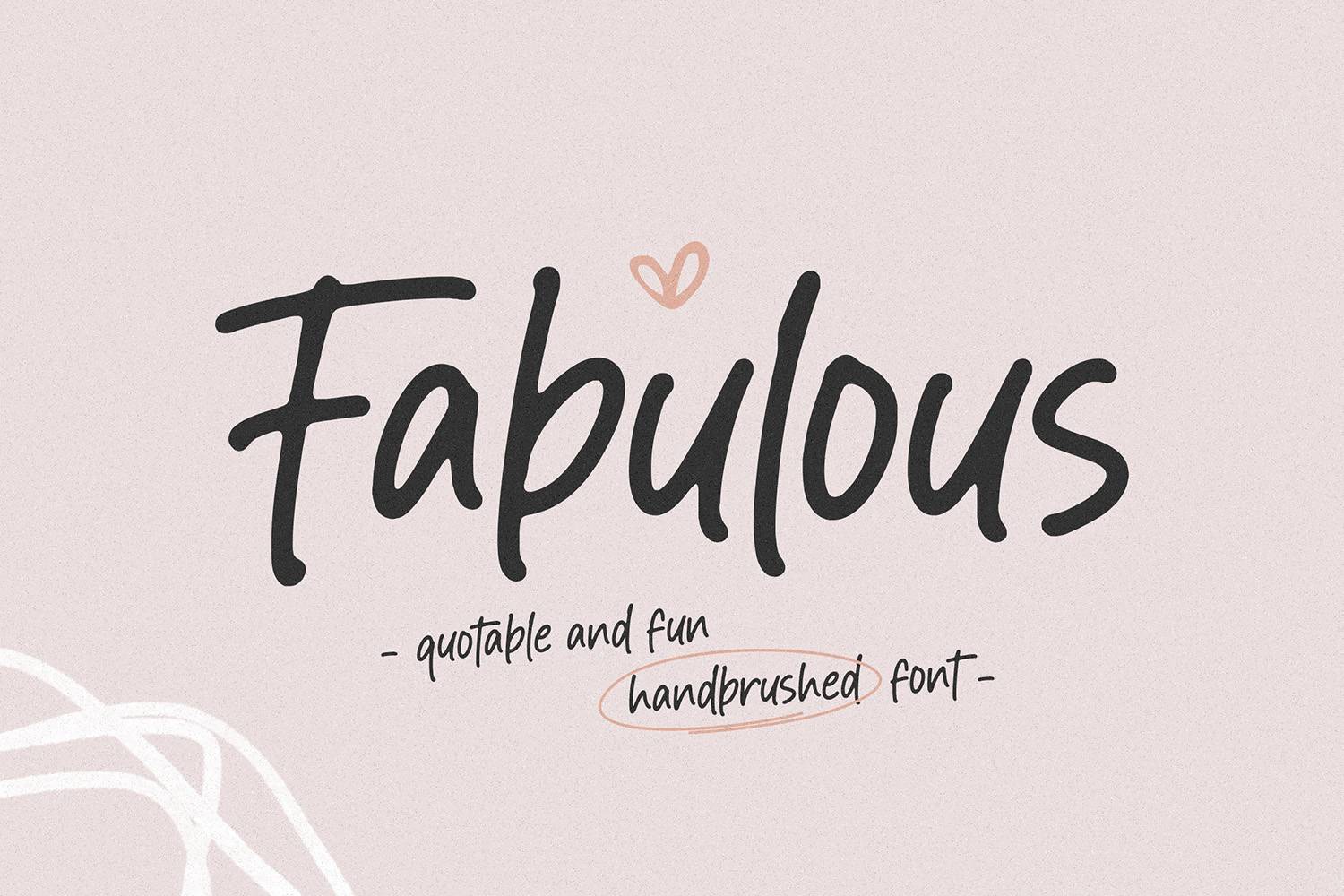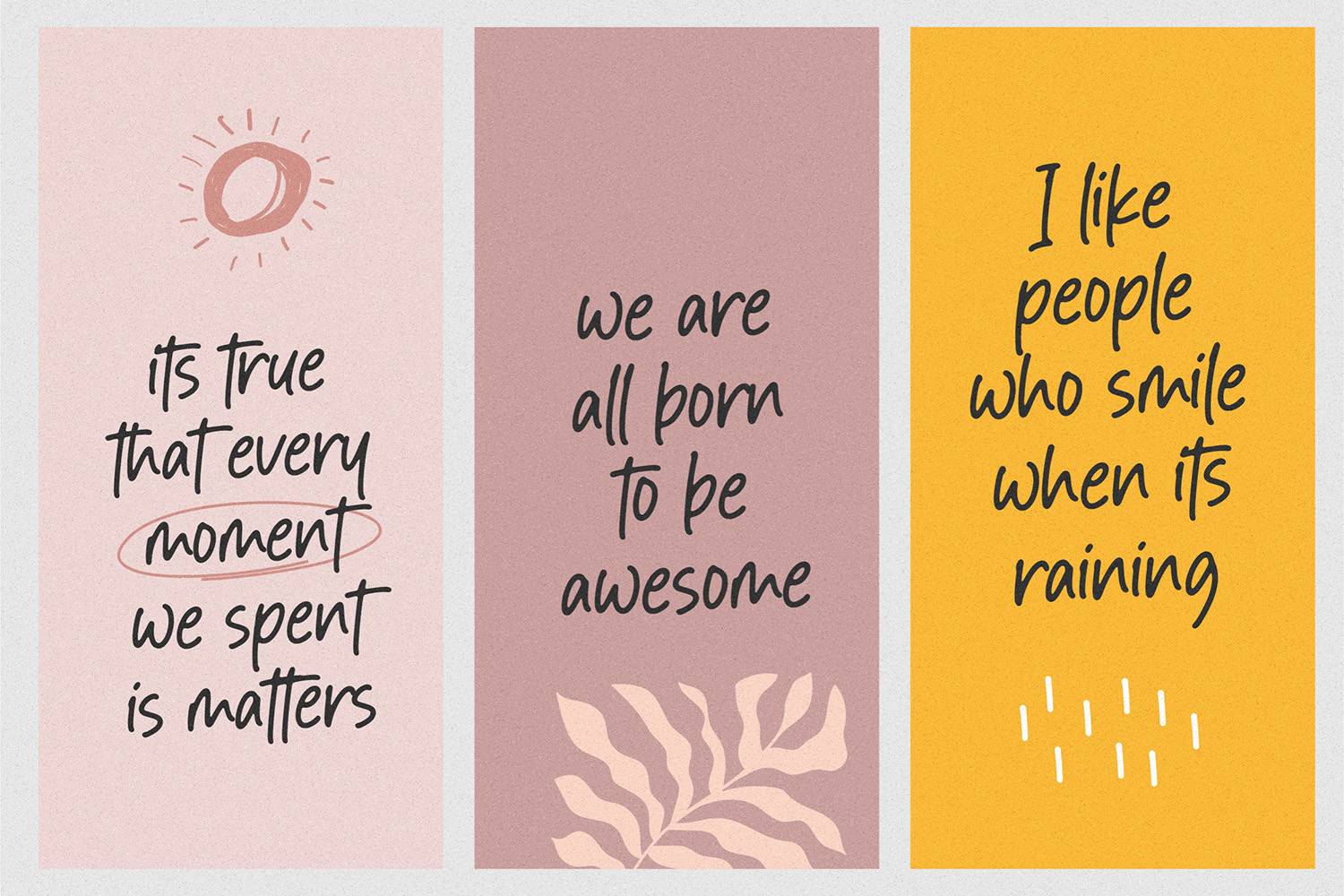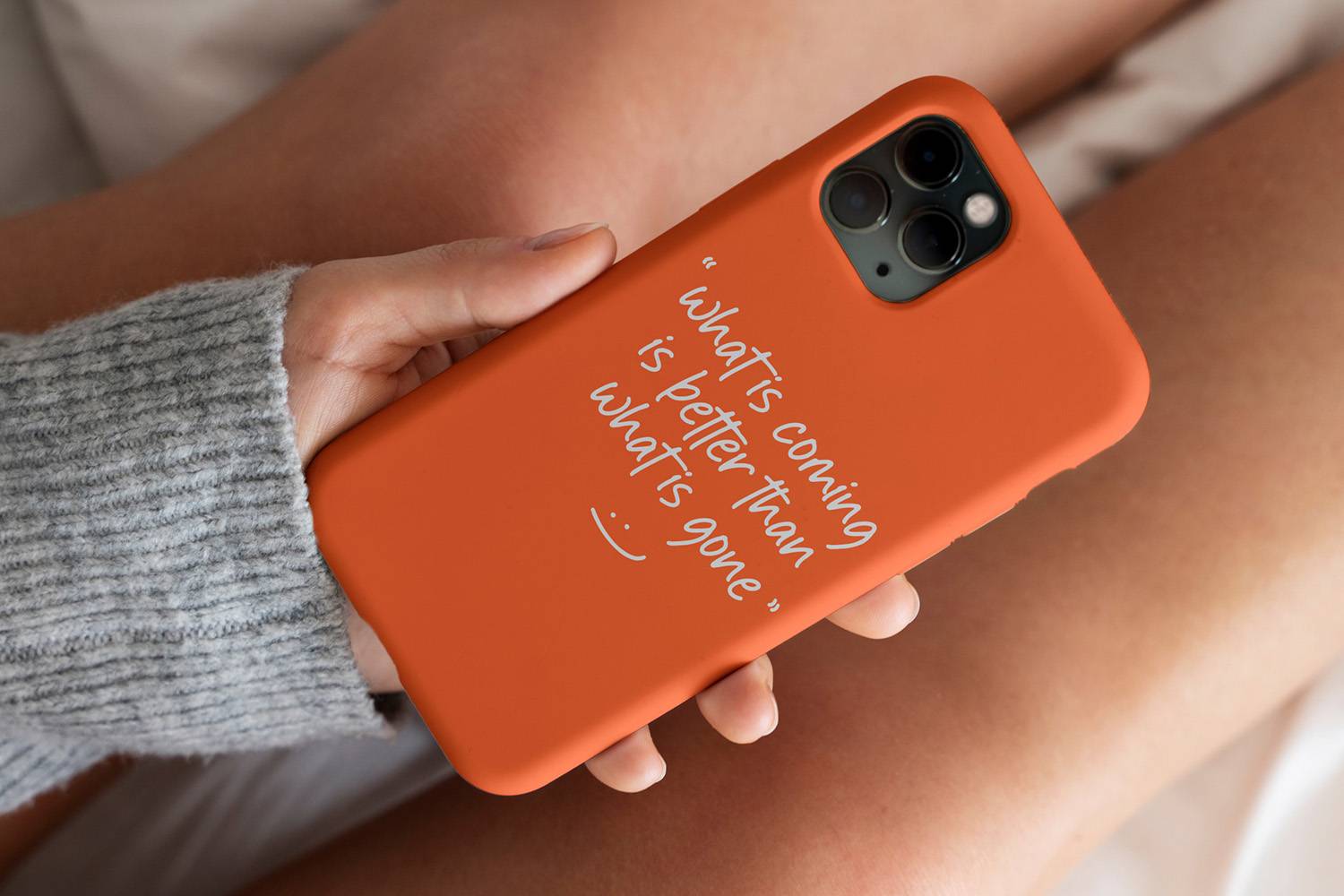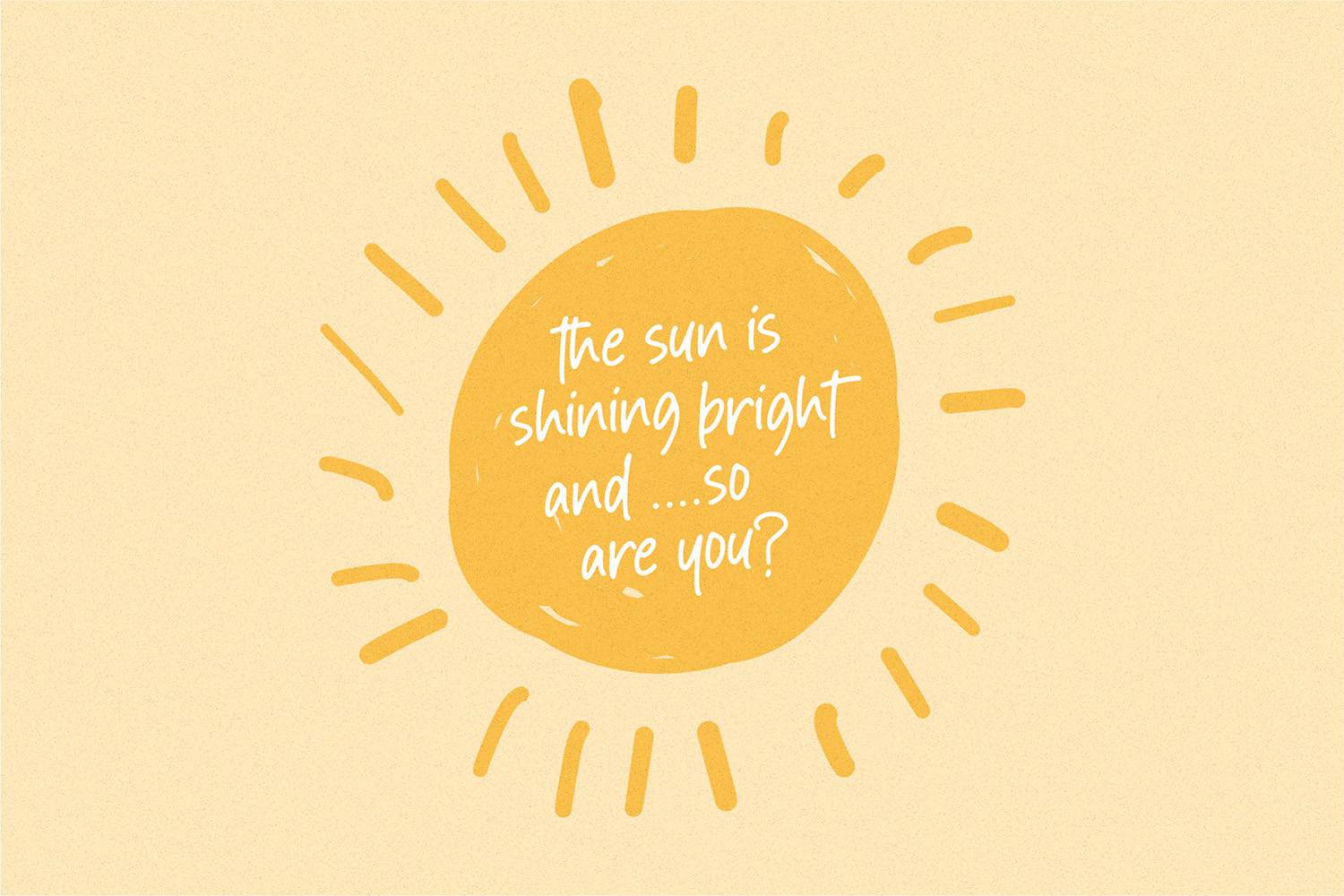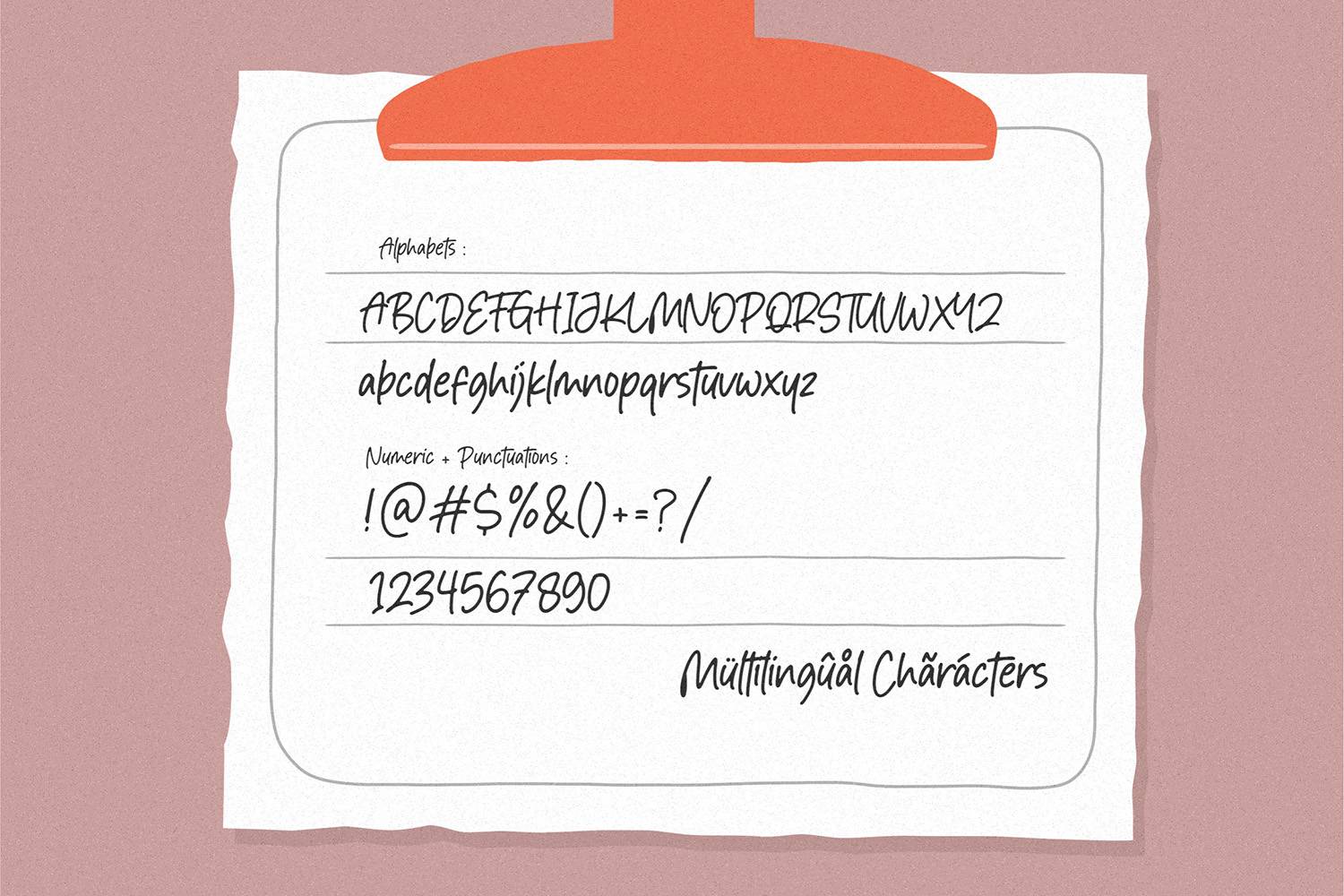
Fabulous Font is a casual, handwritten script typeface with a lively and friendly personality. It features flowing, smooth strokes with moderate contrast and a slightly condensed width, giving it an approachable yet energetic feel. Ideal for informal branding, social media graphics, and creative projects, this font brings a personal touch that works well in headlines and short texts needing warmth and expressiveness.
Fabulous Font
About Fabulous Font